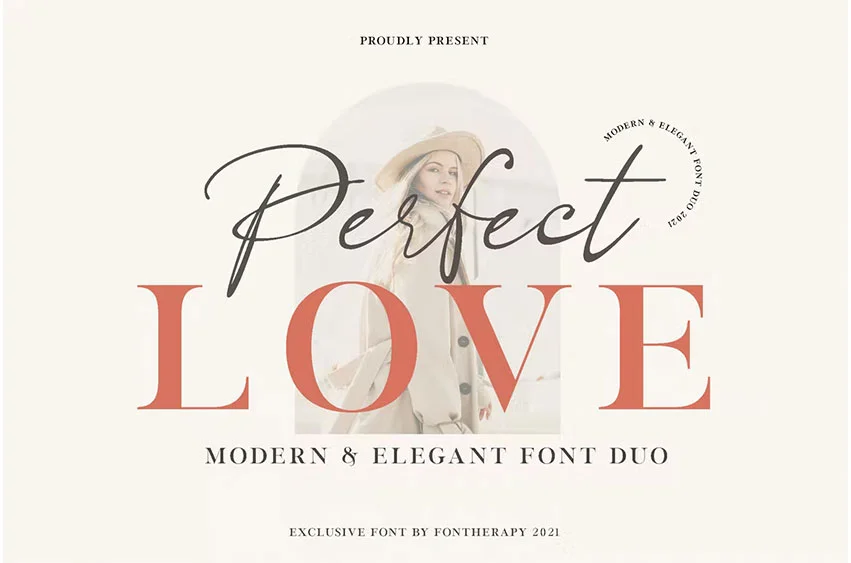
Perfect Love Font
Perfect Love Font that made for designer who love to make beautiful project like craft, svg , clothing, poster, fashion, logo, and many others. Perfect Love is a font duo , comes with a lot of alternate/ligatures that let you make a good combination design.